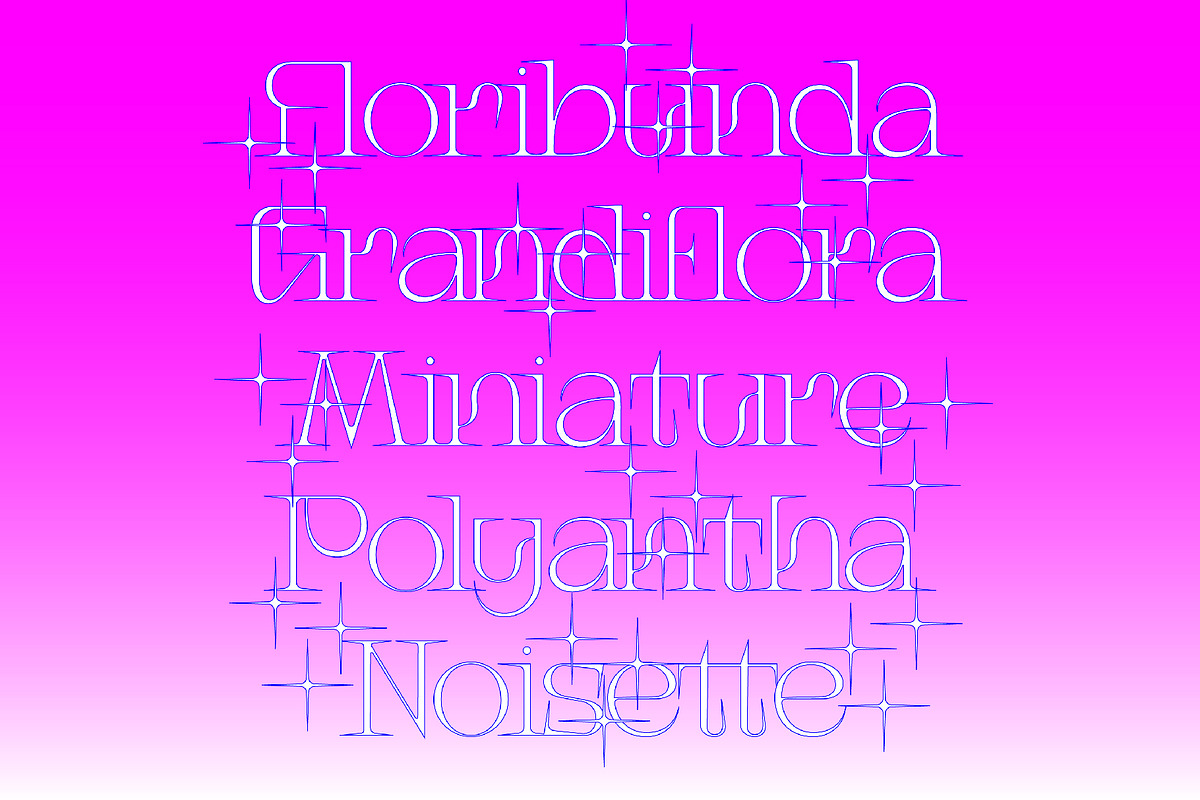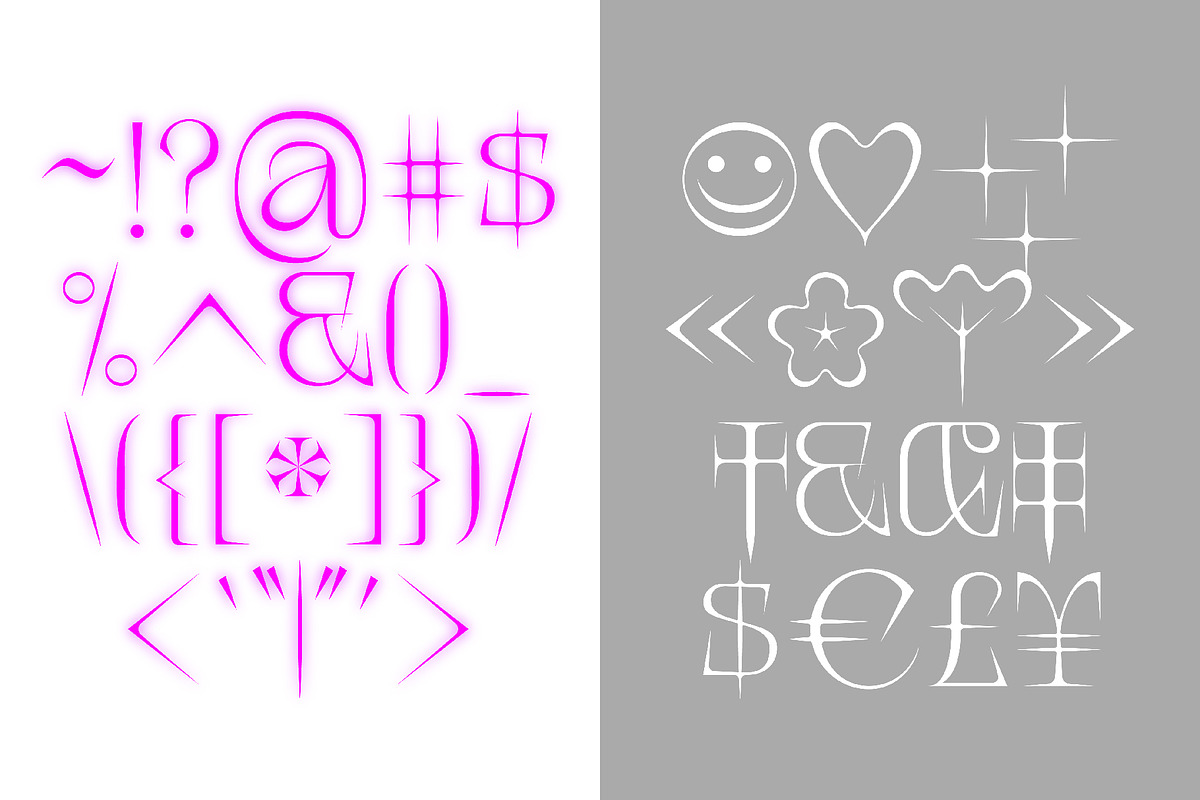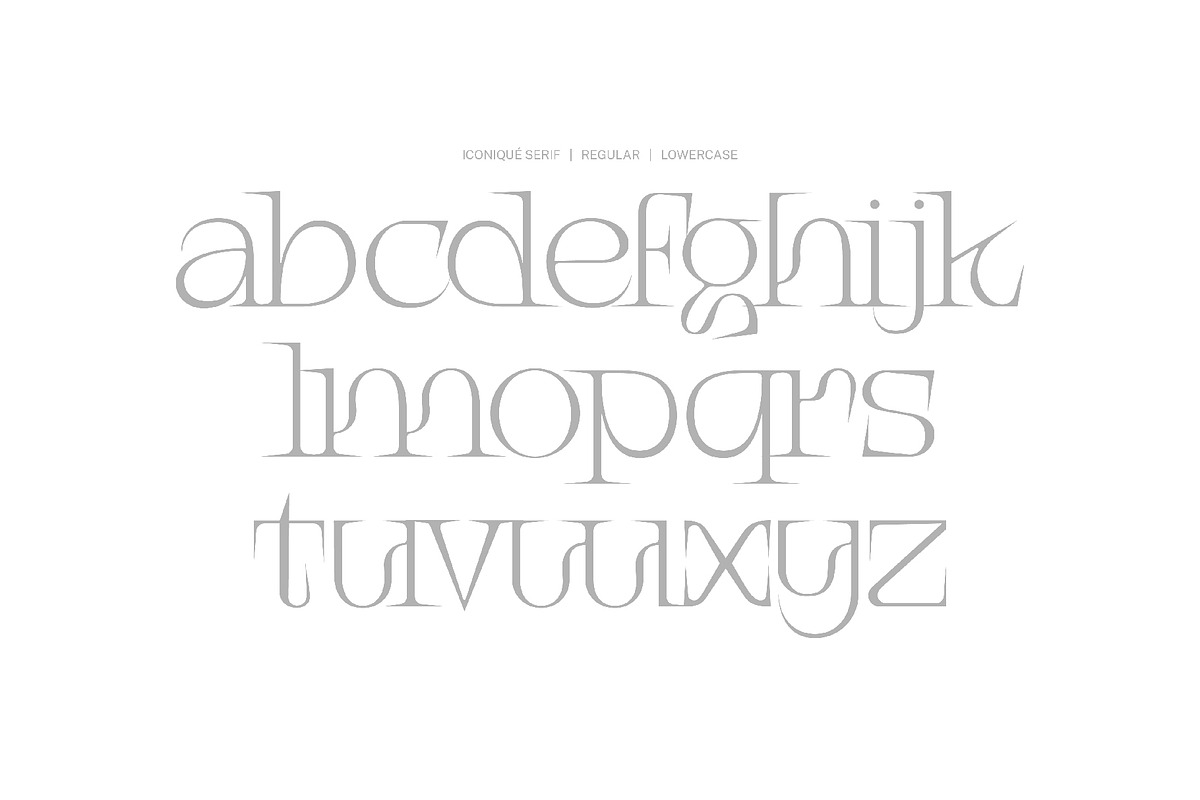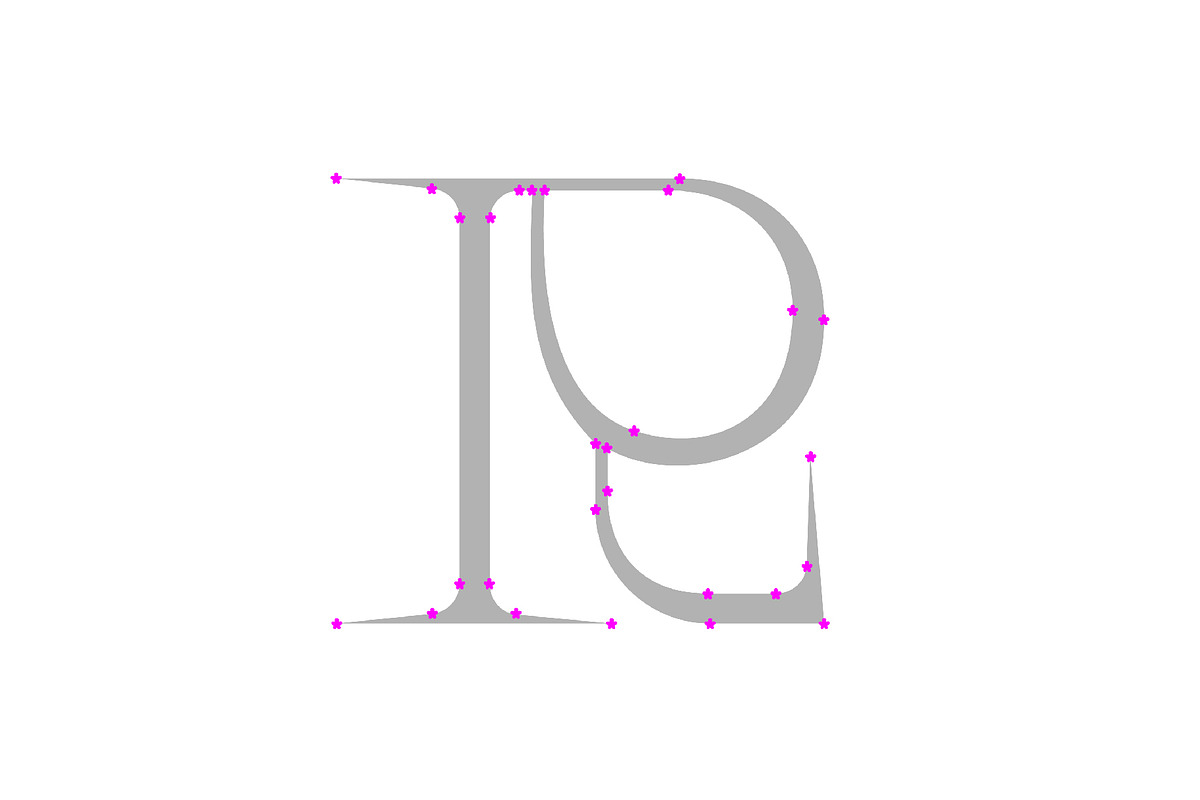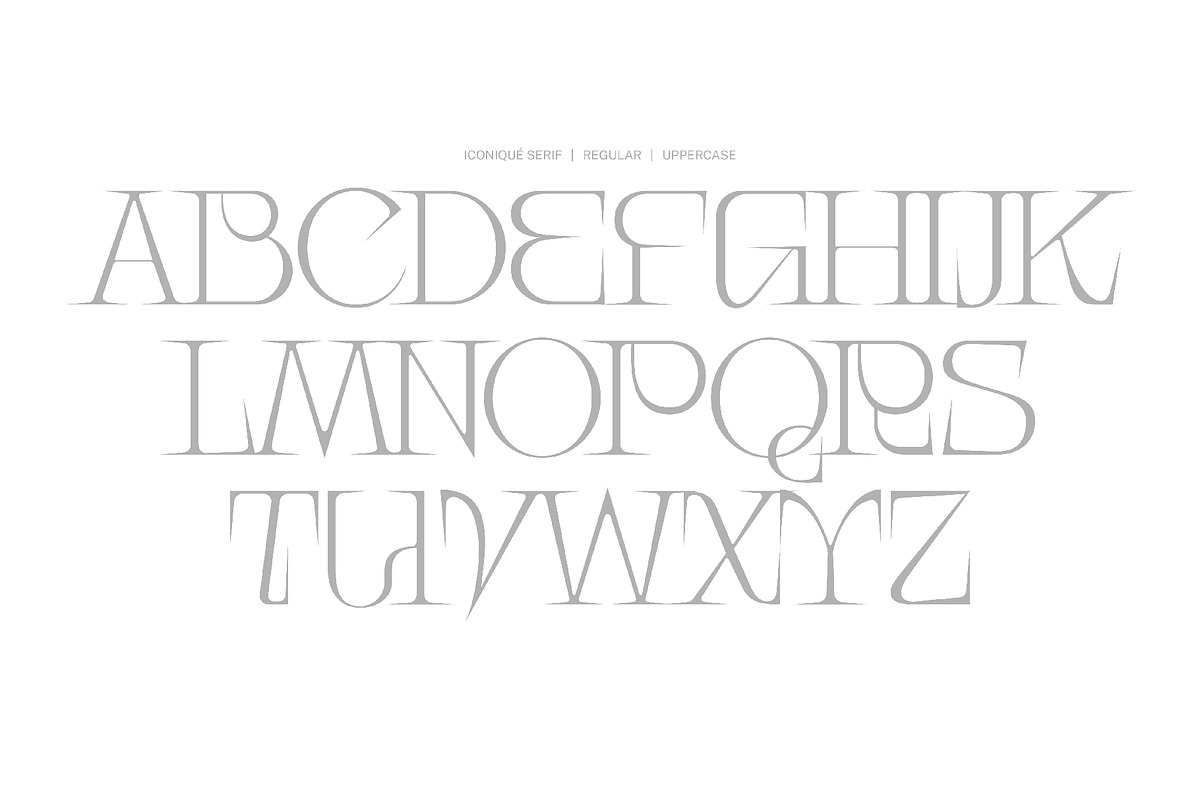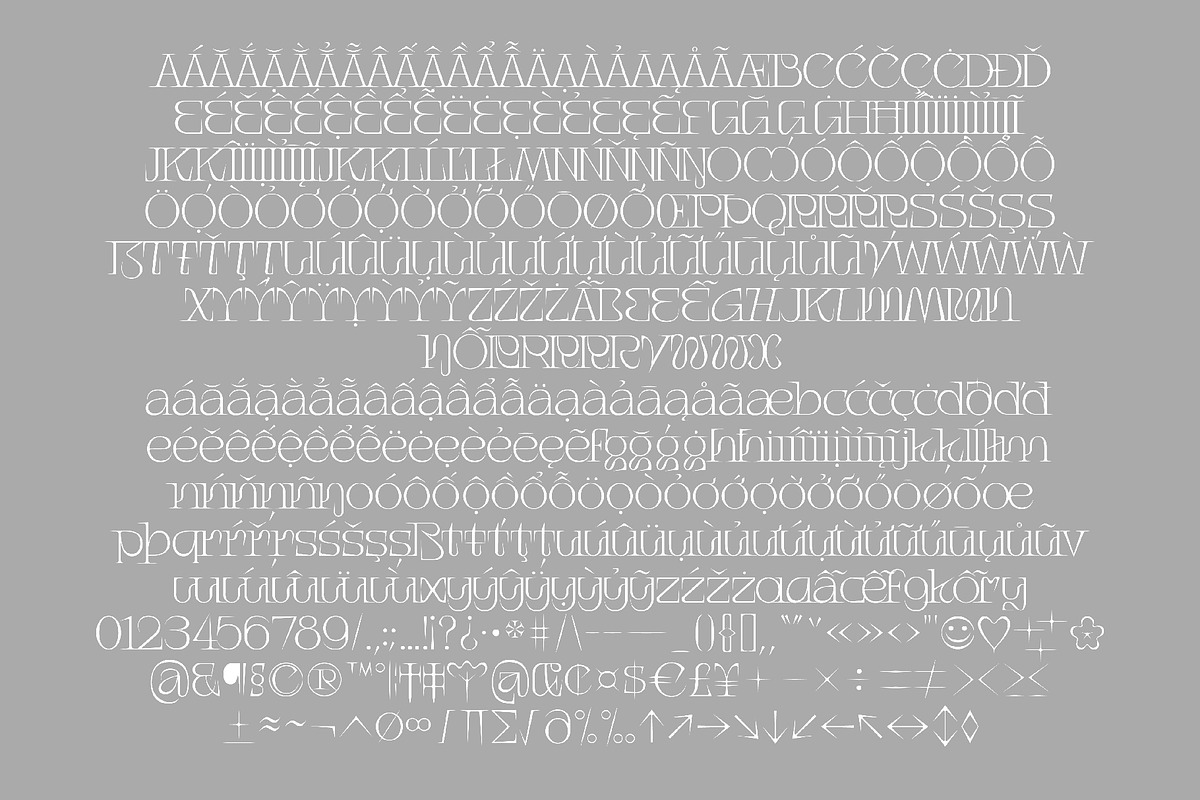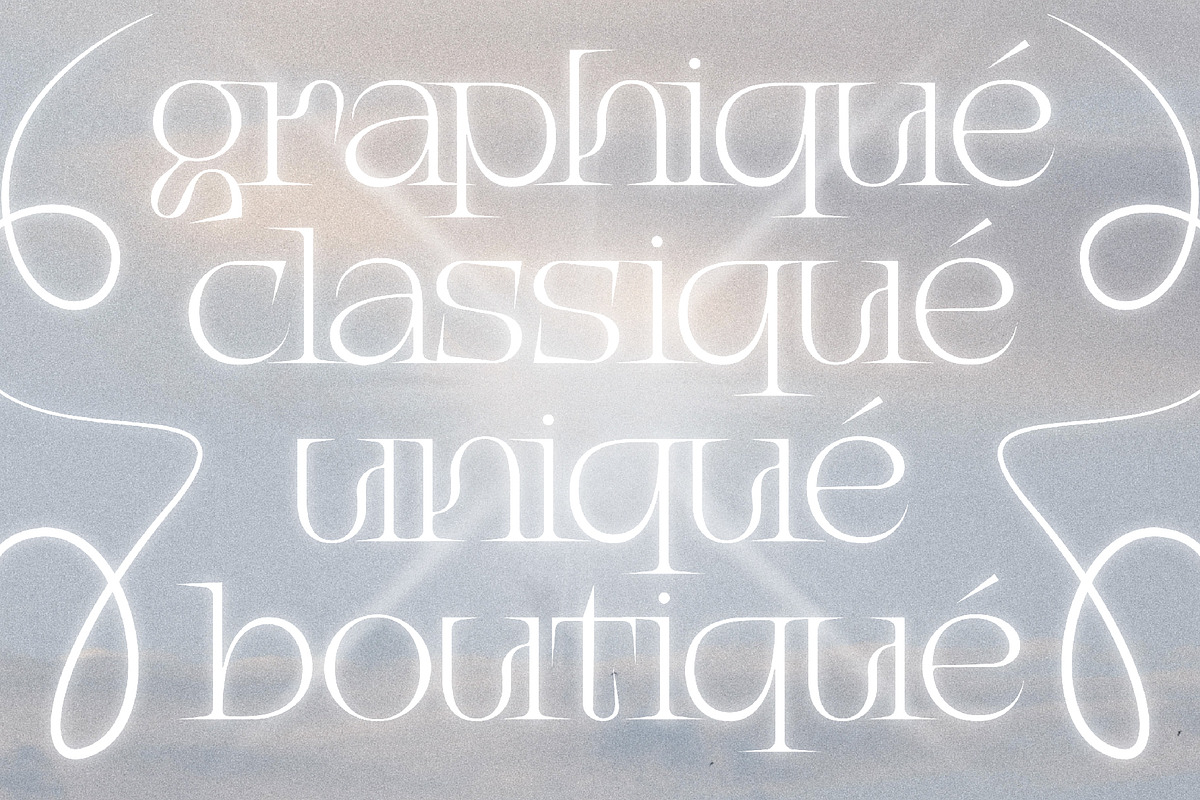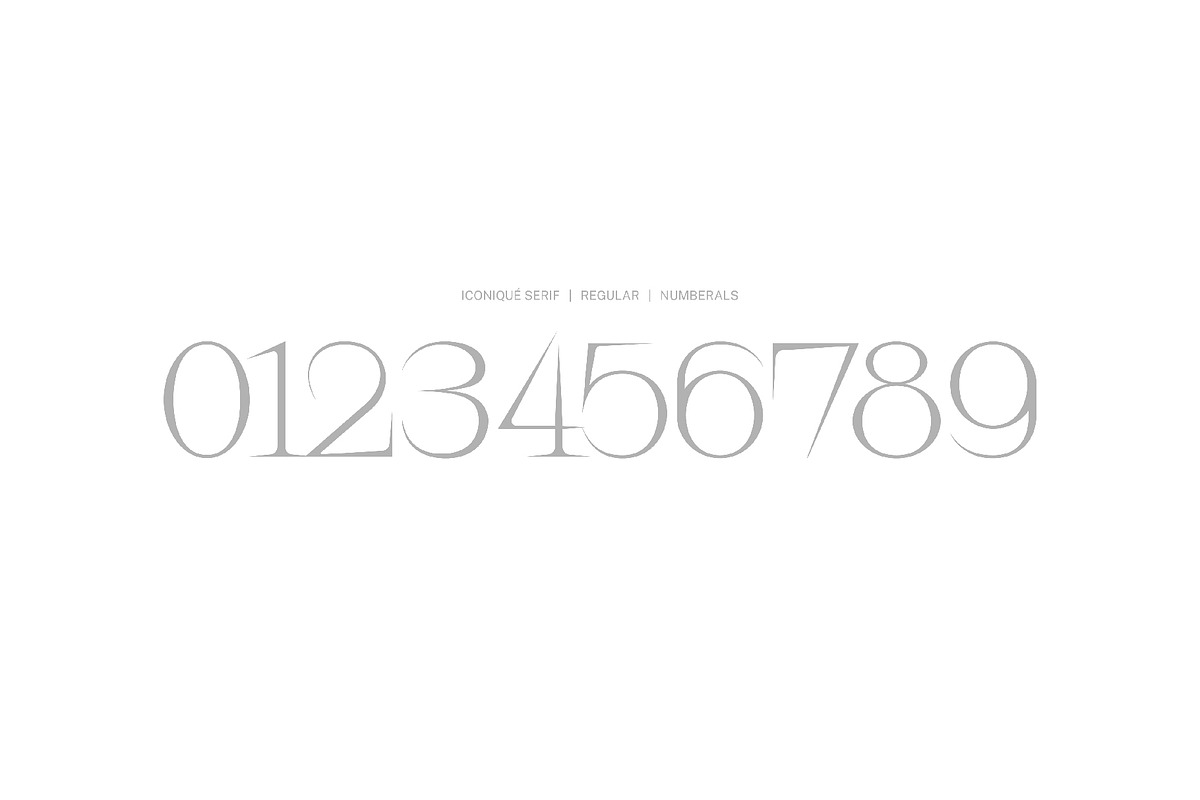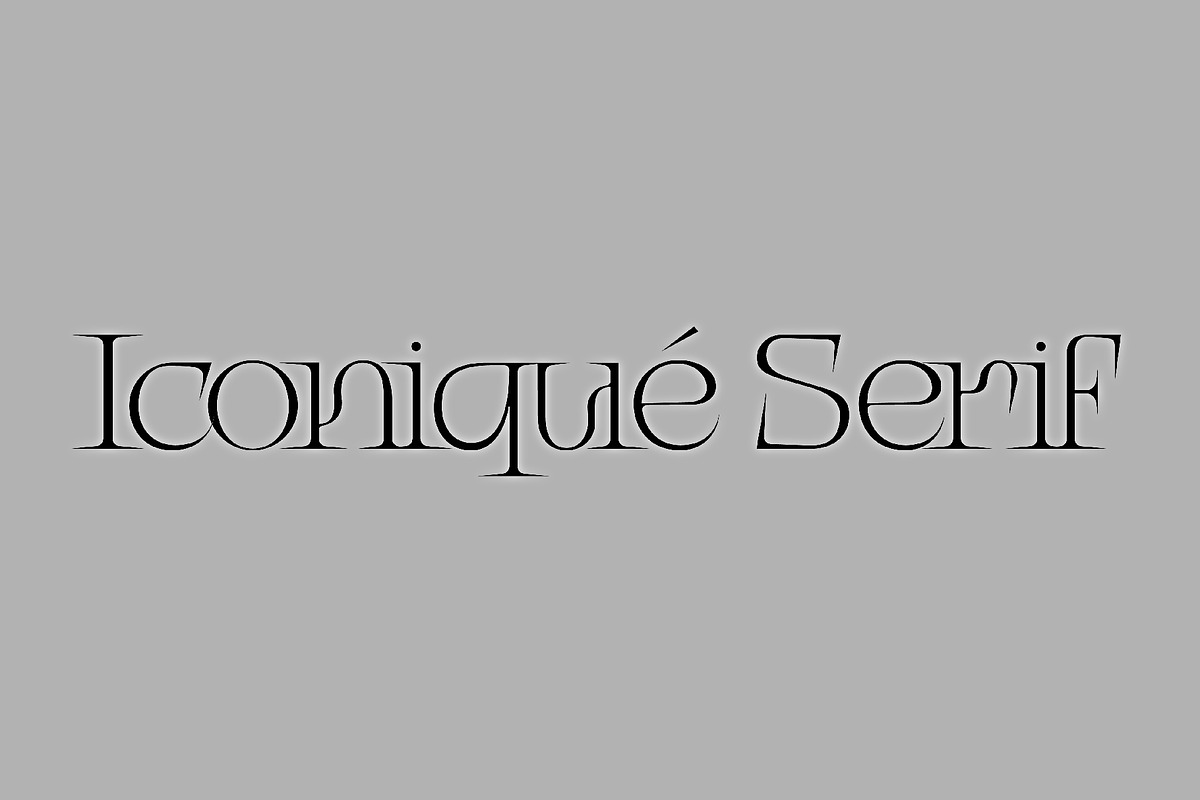
Iconique Serif Regular
Iconique Serif is a display font from the Iconique Family. Inspired by the beauty of rose flower, the font has a rebellious look with elegant curves and thorns.